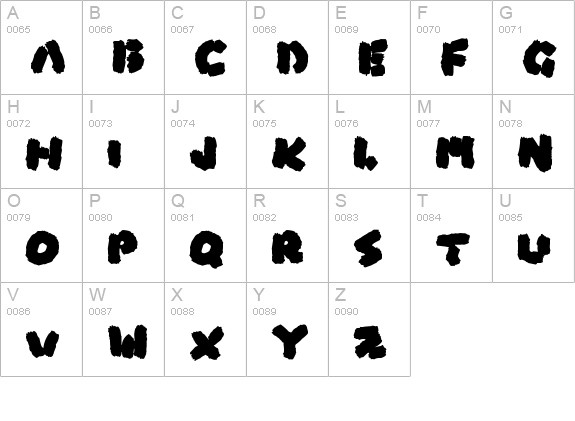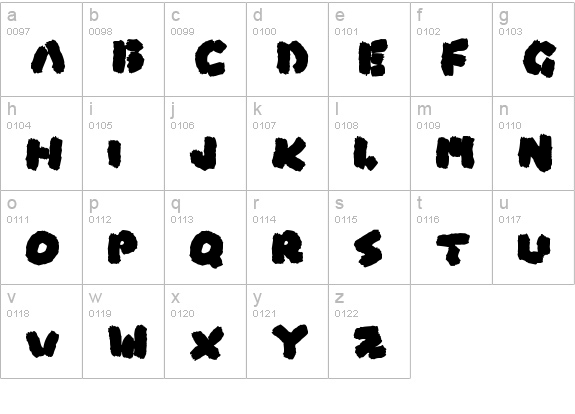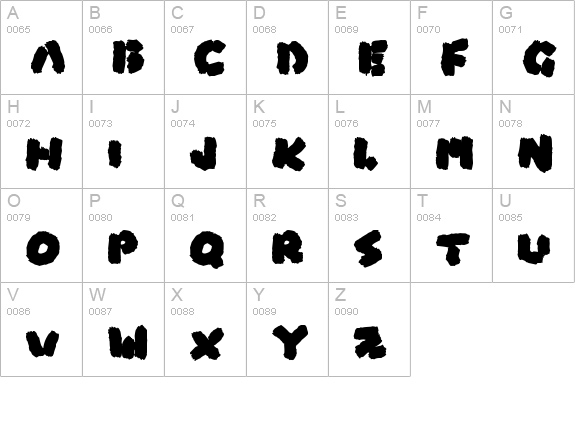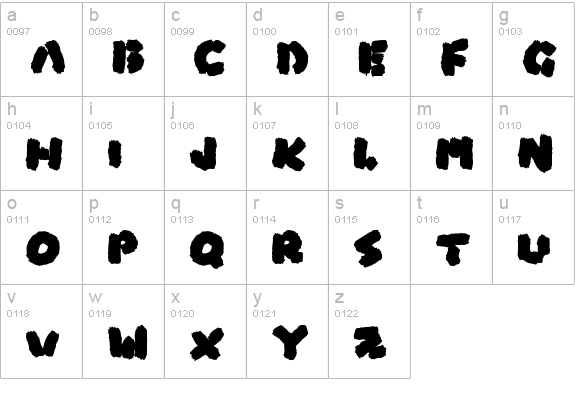
Boss Fight Font Details
Boss Fight is a free for personal use font in the Script > Brush category, designed by Darrell Flood. It has been downloaded 27 times and is available for Windows, Mac and Linux.
The Boss Fight font is a bold and powerful typeface designed to make a statement. With its strong, angular lines and sharp edges, this font exudes a sense of authority and strength. Whether you're looking to add a touch of boldness to your designs or make a striking impact with your text, Boss Fight is the perfect choice.
This unique font is versatile and can be used for a variety of projects, from posters and banners to logos and headlines. Its distinctive style is sure to grab attention and leave a lasting impression on your audience.